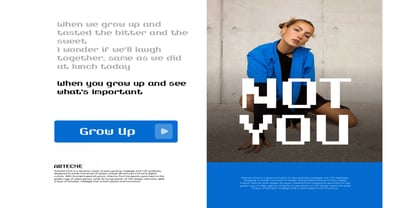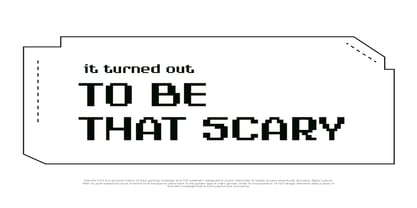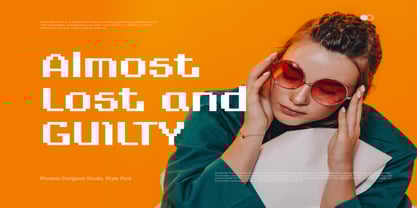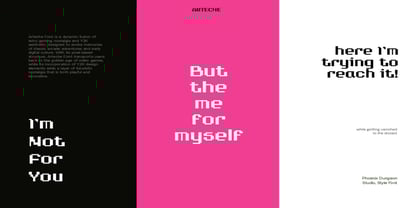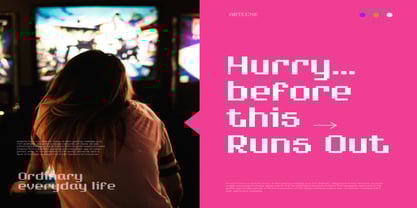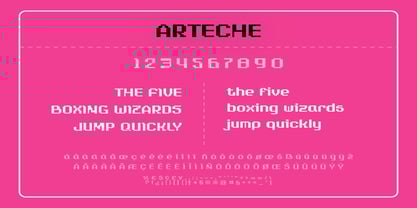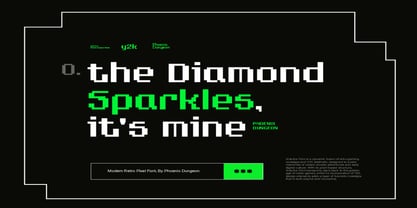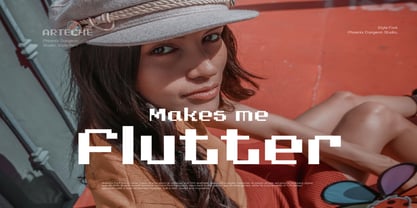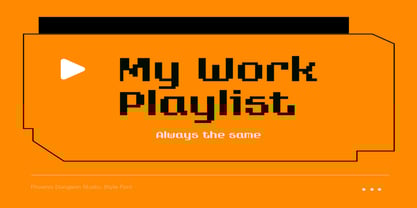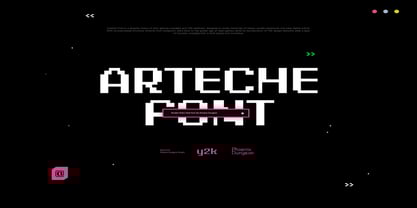
Arteche
by Phoenix Group
The Arteche Font Family was designed by Alif Naufal Muzakki and published by Phoenix Group. Arteche contains 1 styles. More about this family
Arteche Font is a dynamic fusion of retro gaming nostalgia and Y2K aesthetic, designed to evoke memories of classic arcade adventures and early digital culture. With its pixel-based structure, Arteche Font transports users back to the golden age of video games, while its incorporation of Y2K design elements adds a layer of futuristic nostalgia that is both playful and innovative.
Designers: Alif Naufal Muzakki
Foundry: Phoenix Group